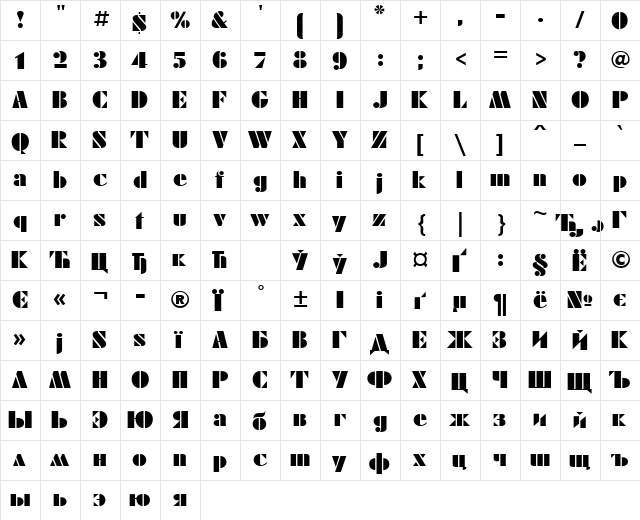
FuturaEugeniaCTT Regular
Design Context for FuturaEugeniaCTT Typeface
FuturaEugeniaCTT has a distinctly futuristic character, with geometric precision and clean angles that feel at home in technology, gaming, and sci-fi contexts.